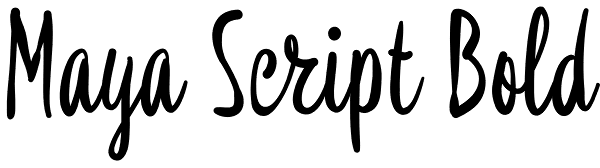
Maya Script
Introducing Maya Script! A slim and beautiful font with personality and character. It comes in three weights - Regular, Bold and Ornaments! The simplest way to create beautiful designs, a special Card or Invitation, everything that you could imagine...